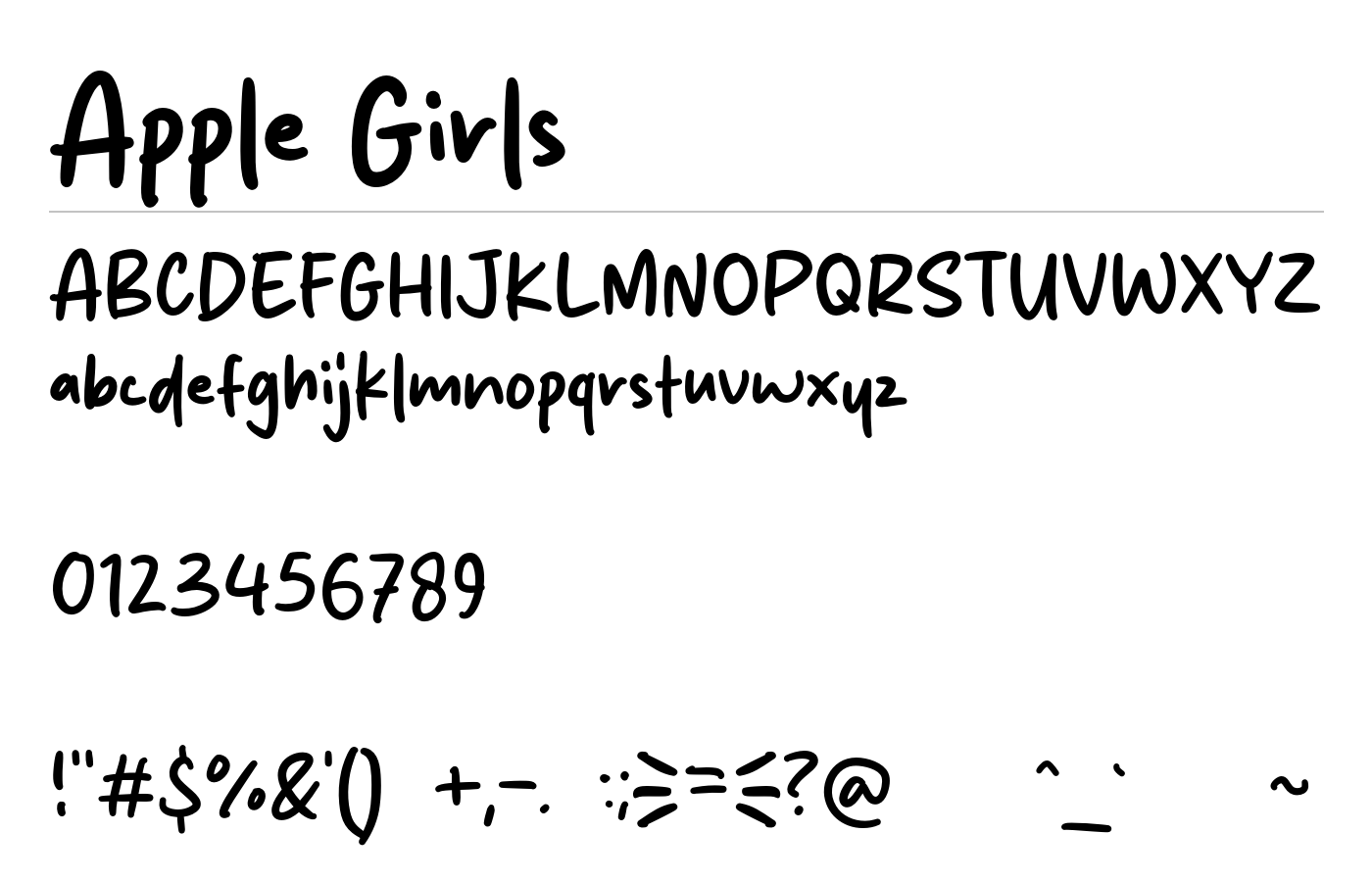
Apple Girls is a playful and casual handwritten sans serif font with a friendly, informal vibe. Its smooth, rounded strokes and slightly irregular letterforms give it a warm, approachable feel, making it ideal for creative projects, children’s designs, or any context that benefits from a personal touch. This font works well for headlines, invitations, branding, and social media where a fun and relaxed personality is desired.
Apple Girls Font
About Apple Girls Font